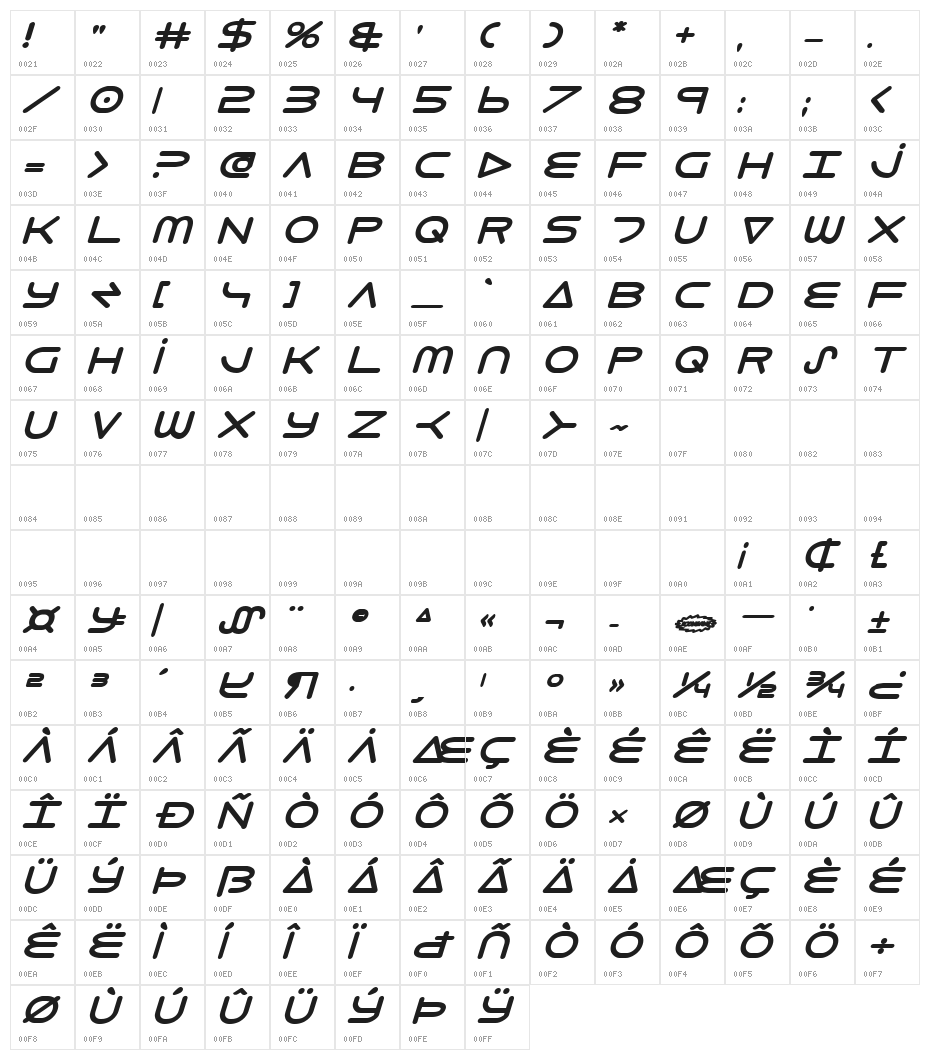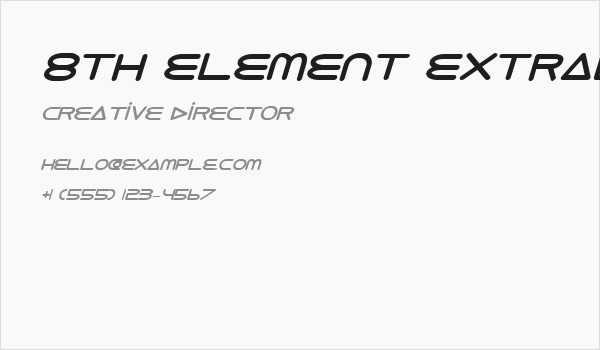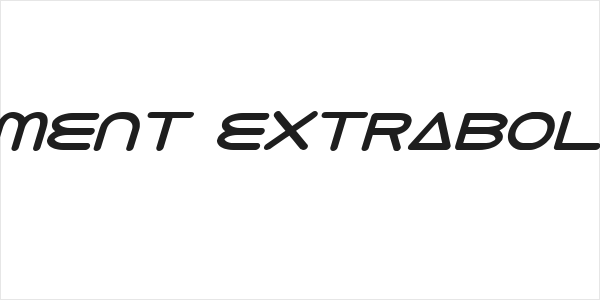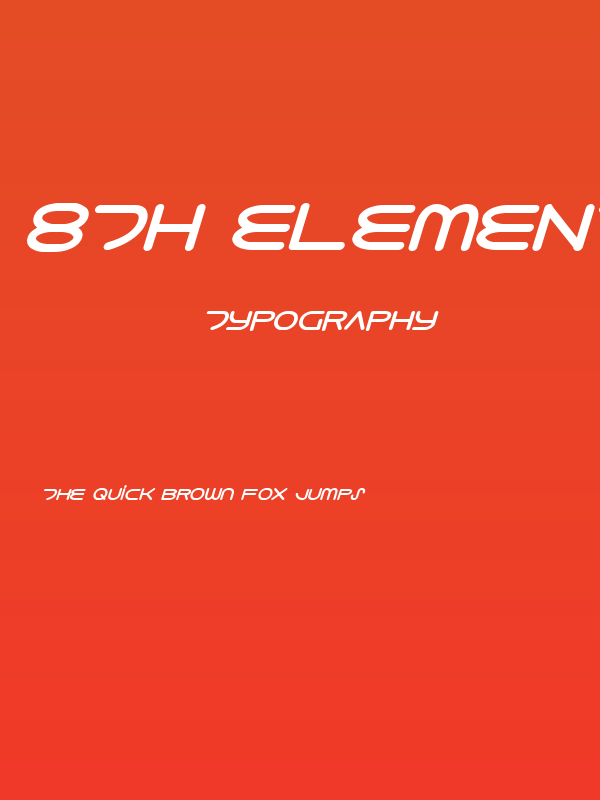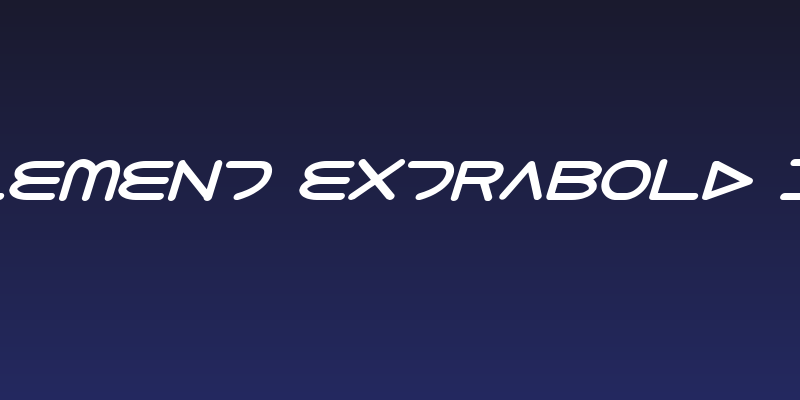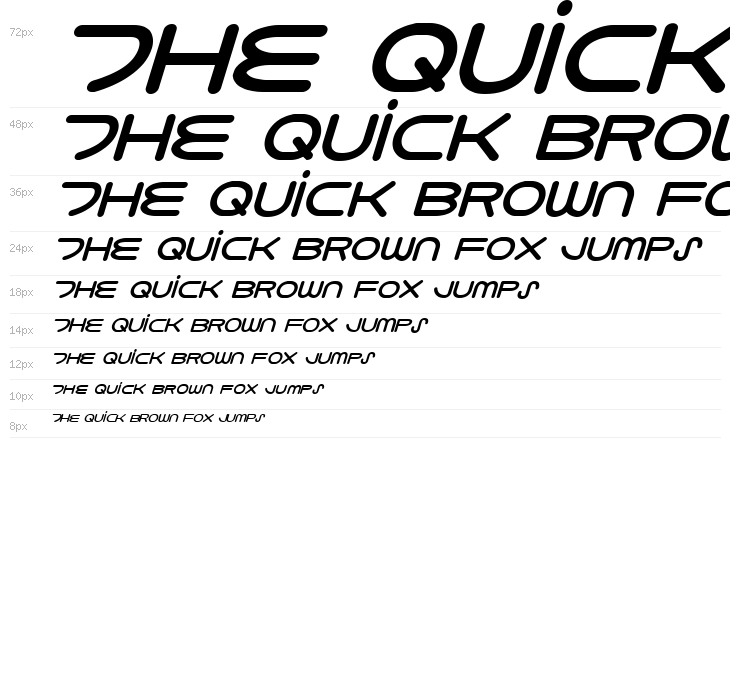
8th Element ExtraBold Italic Font
8th Element ExtraBold Italic Description
This font features a futuristic and dynamic design with a distinct italic slant, giving it a sense of motion and speed. The characters are bold and rounded, with a geometric style that incorporates unique angles and curves. The uppercase and lowercase letters maintain a consistent style, while the numerals and special characters complement the overall aesthetic. This font's modern and sleek appearance makes it suitable for projects that require a contemporary and energetic feel.
Proposed ProjectsIdeal for technology branding, sports team logos, sci-fi movie posters, and modern advertising campaigns.